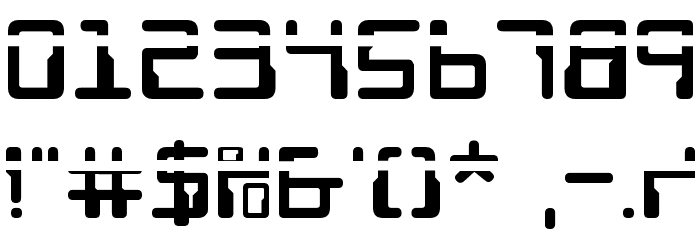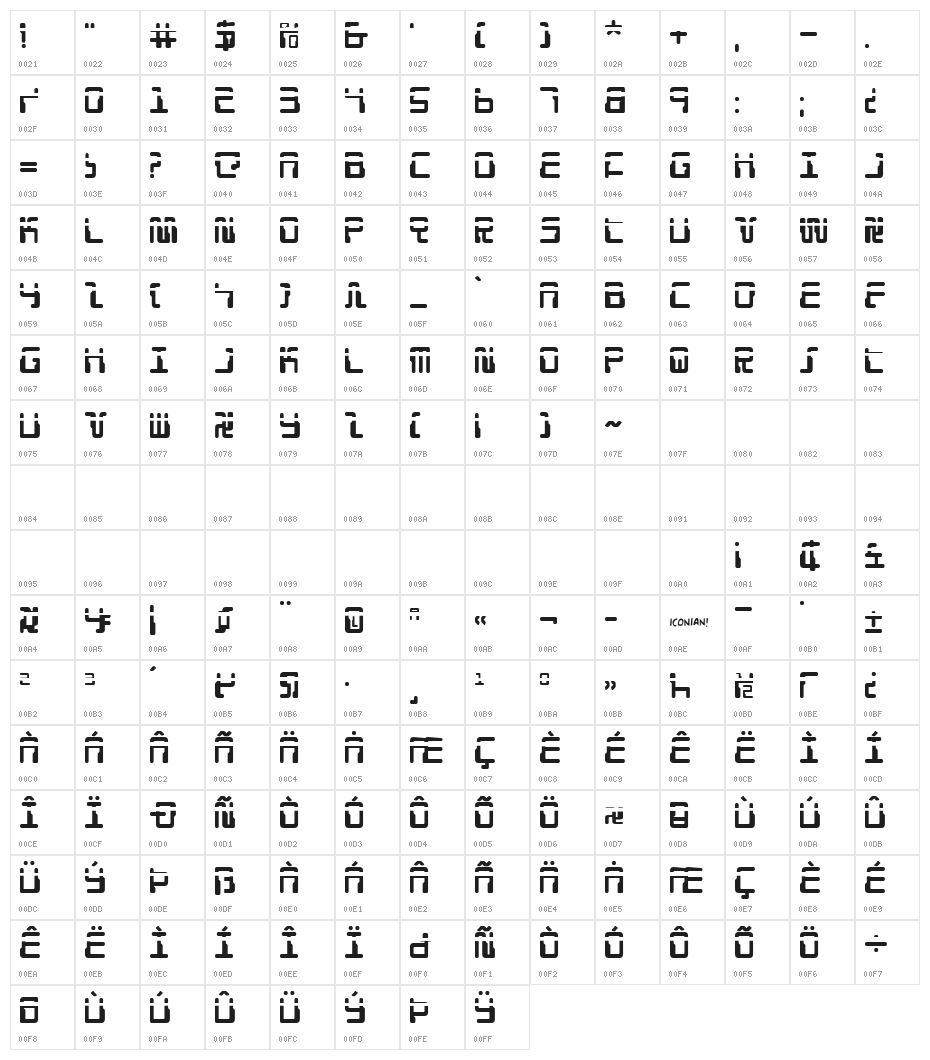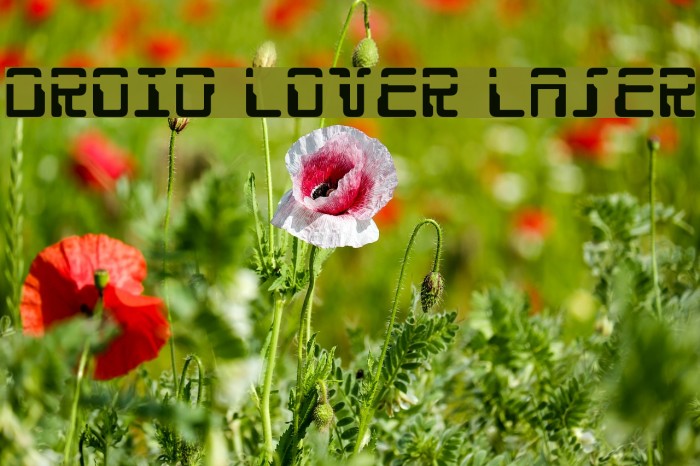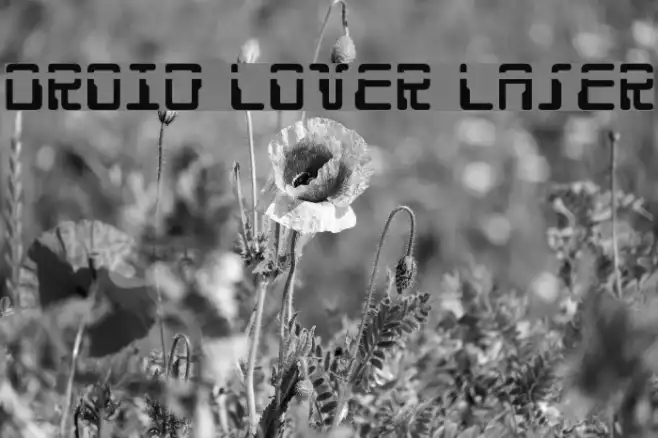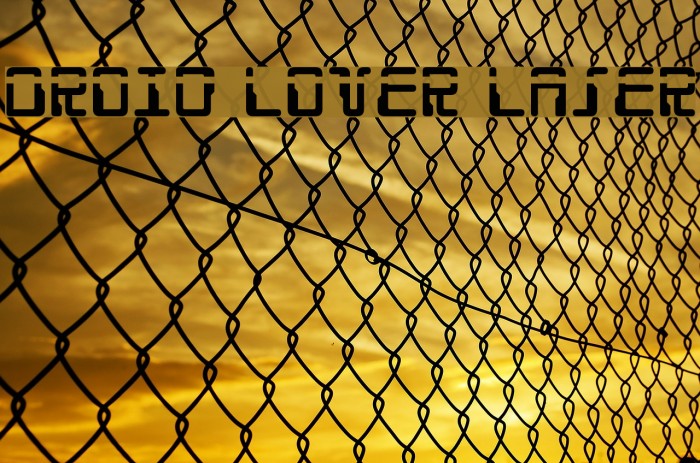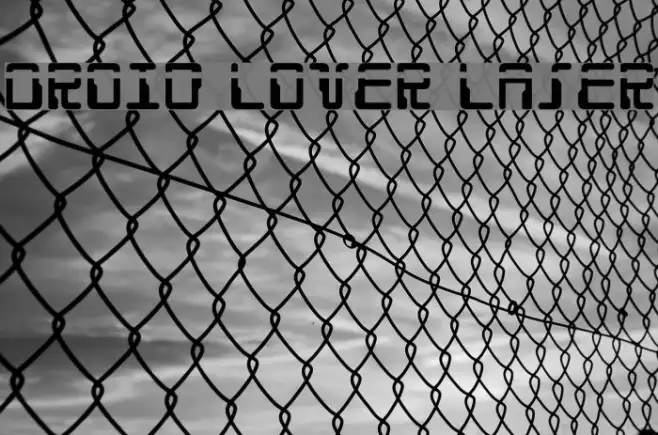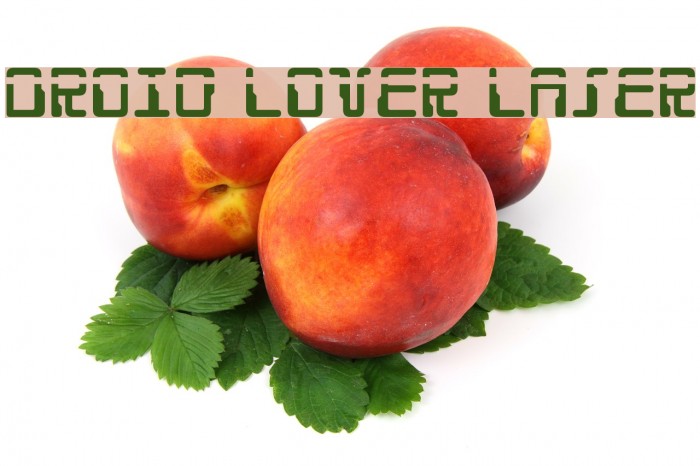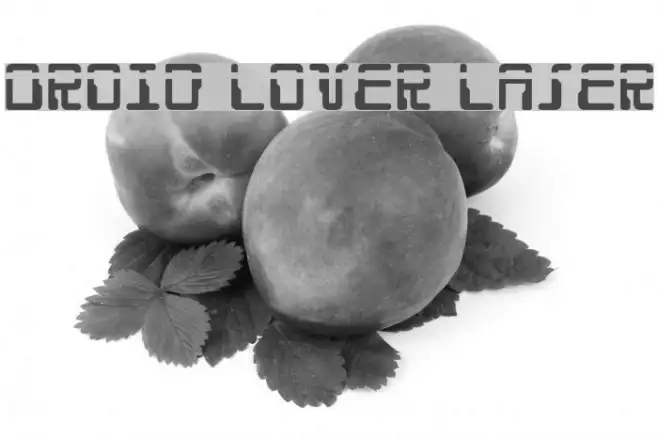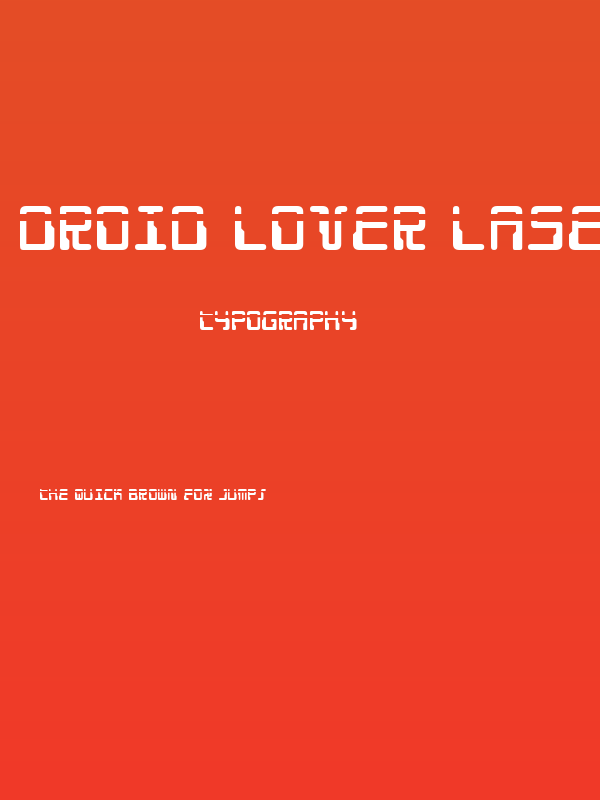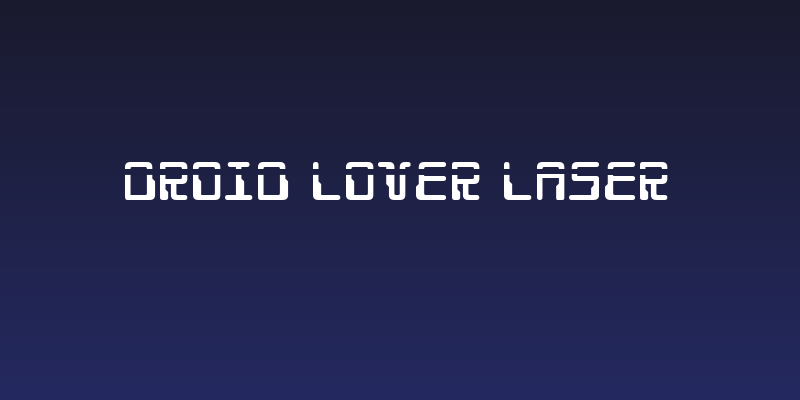
Droid Lover Laser Font
Droid Lover Laser Description
This font features a futuristic and mechanical design, characterized by its blocky and geometric letterforms. The characters are constructed with a stencil-like appearance, incorporating breaks and gaps that give it a digital, robotic feel. The uppercase and lowercase letters maintain a consistent style, with rounded edges that soften the otherwise rigid structure. Numbers and special characters follow the same design principles, ensuring uniformity across the typeface. The font's unique aesthetic makes it suitable for projects that require a modern and tech-inspired look.
Proposed ProjectsIdeal for technology-themed designs, video game graphics, sci-fi movie posters, and branding for tech companies.